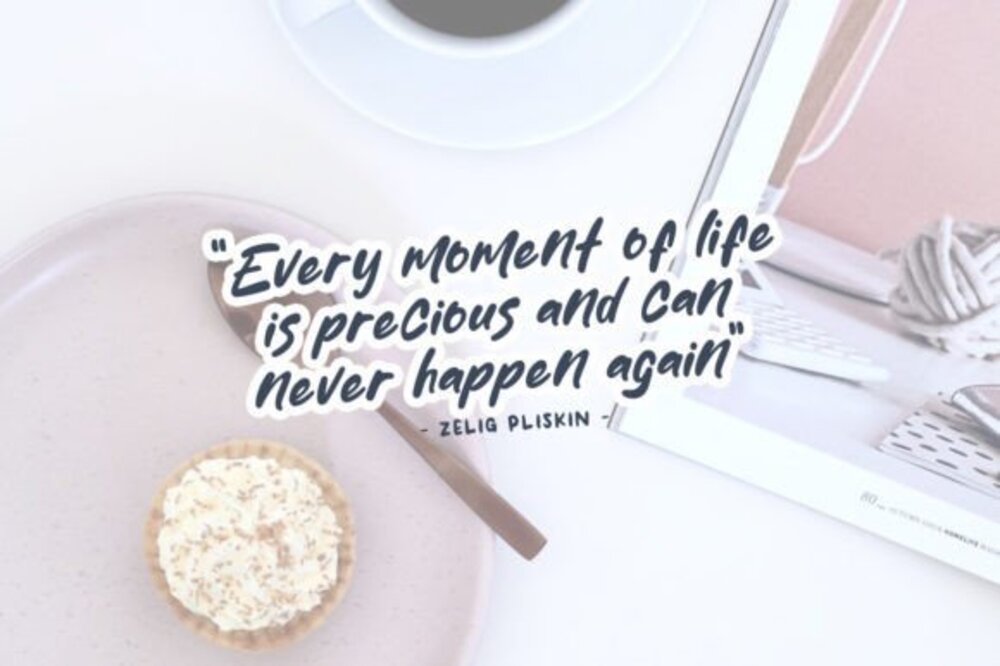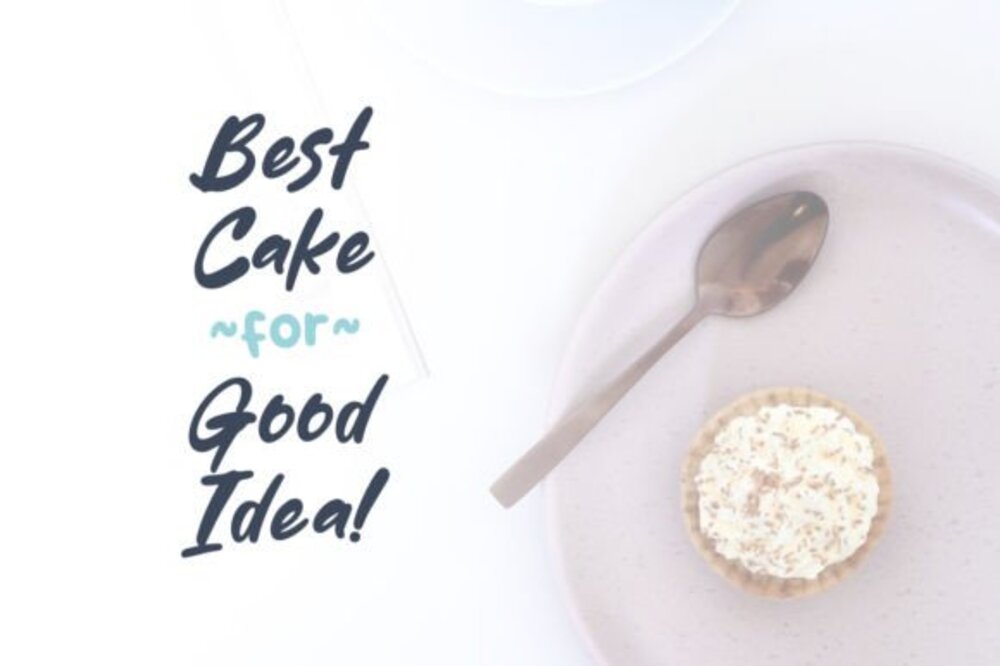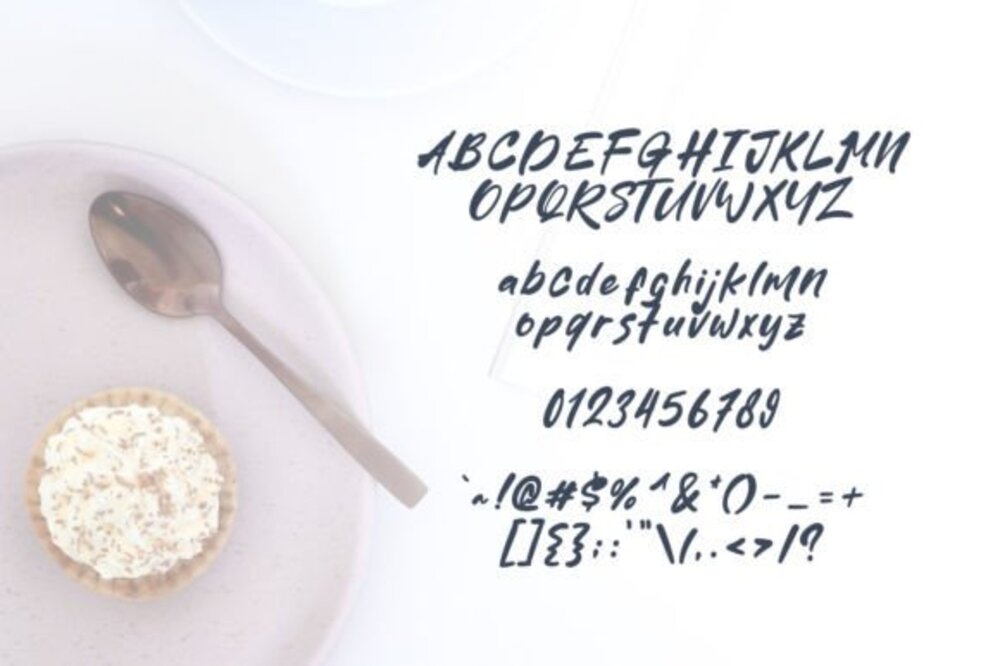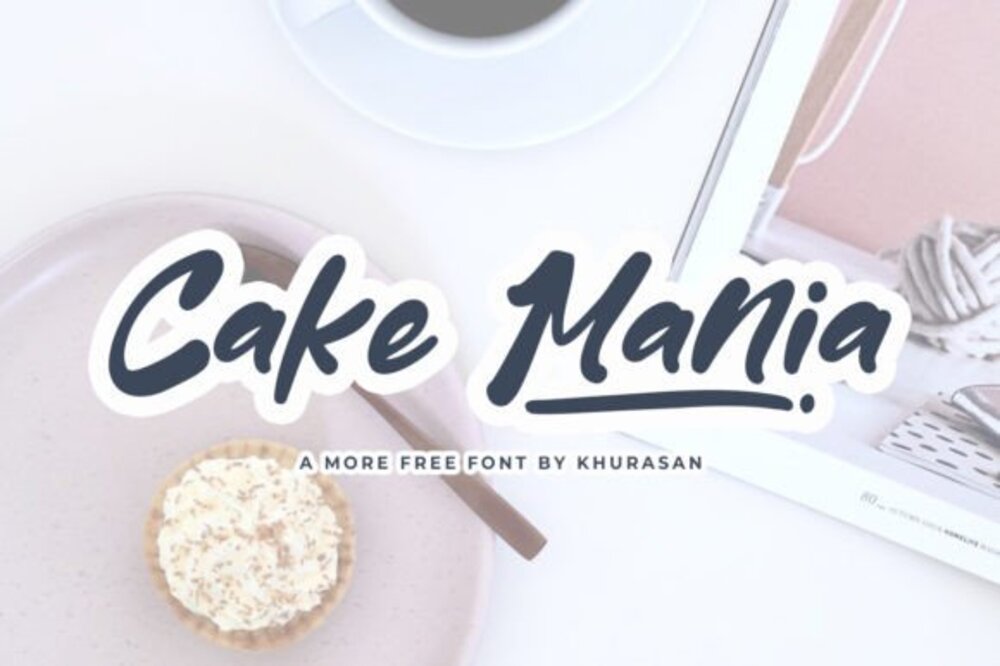
Cake Mania Font
Cake Mania is a playful, hand-drawn brush font perfect for adding a touch of whimsy to your designs. Its dynamic and natural look makes it ideal for projects like greeting cards, branding, and social media graphics.